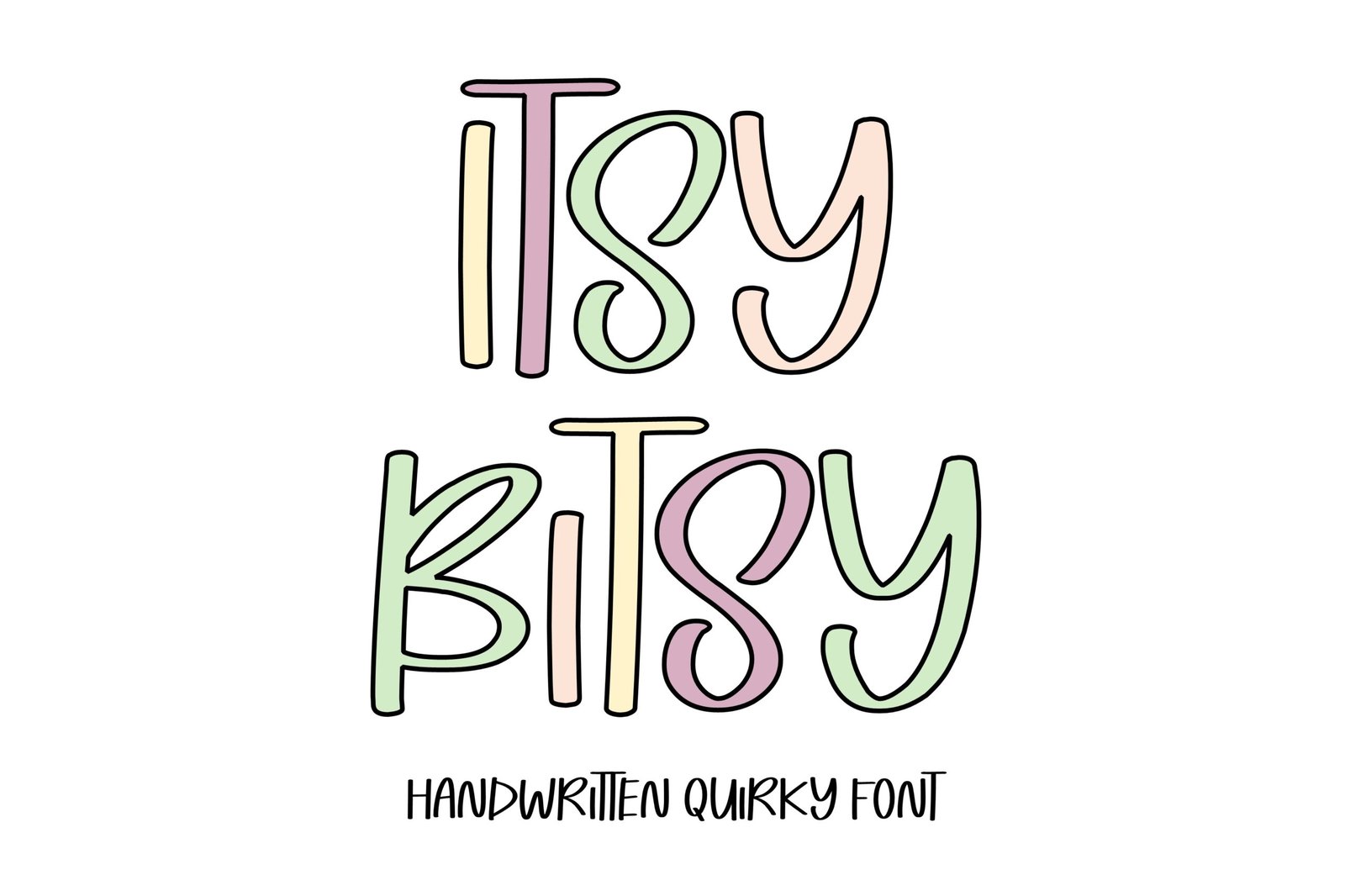
Itsy Bitsy Font
Handwritten quirky font. “Itsy Bitsy”. Perfect for advertising and display purposes, including banners, book covers, shirts, posters, logos and much more!